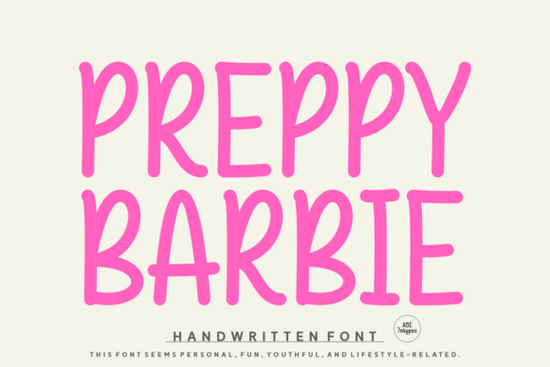
If you're looking for a handwritten font that feels personal without sacrificing polish, the Preppy Barbie Font is worth a closer look. It’s designed to mimic natural handwriting think smooth strokes, gentle curves, and letterforms that flow effortlessly from one to the next. Unlike overly stylized script fonts that can be hard to read, Preppy Barbie strikes a balance between charm and clarity, making it especially useful for projects where warmth and approachability matter.
This kind of font works well across a range of creative uses: think quote graphics for Instagram, hand-lettered-style wedding invitations, logo concepts for small brands, or even printable wall art for Etsy shops. Its casual yet clean appearance helps your message feel human, not corporate.
What makes Preppy Barbie different from other handwritten fonts?
Many script fonts lean either too formal or too chaotic. Preppy Barbie avoids both extremes. It has enough character to stand out but remains highly legible even at smaller sizes. The spacing between letters feels organic, not cramped, which is essential if you’re using it for body text in greeting cards or packaging labels.
If you’ve tried fonts like Monday Outline or Hello Wicked, you’ll notice Preppy Barbie sits in a slightly softer, more relaxed lane. Where Monday Outline offers bold contrast and Hello Wicked leans into playful drama, Preppy Barbie keeps things grounded and friendly ideal when you want your design to feel like it came from a real person, not a template.
Who should use this font?
It’s especially handy for:
- Print-on-demand sellers creating mugs, T-shirts, or tote bags with inspirational quotes
- Small business owners designing social media graphics or email headers that reflect their brand voice
- Crafters and hobbyists making custom cards, planner stickers, or scrapbook elements
- Freelance designers looking for an authentic handwritten option that doesn’t require heavy kerning adjustments
Because it includes standard ligatures and alternates (depending on the version you download), you can add subtle variety to repeated letters great for avoiding that “computer-generated” repetition that plagues simpler script fonts.
How does it compare to similar Creative Fabrica fonts?
Fonts like Strawberry Crumble and Sundae Script Duo also offer a sweet, handcrafted aesthetic, but they often include more decorative swashes or bouncy baselines. Preppy Barbie is more restrained, which gives it broader usability. You can pair it confidently with sans-serif fonts for contrast or layer it over photos without overwhelming your layout.
And if you enjoy the delicate, garden-party vibe of BeautifulGarden, you might appreciate how Preppy Barbie delivers a similar sense of intimacy but with a modern, everyday energy rather than a vintage flourish.
Tips for getting the best results
To make the most of this font:
- Avoid all caps. Like most handwritten styles, it’s designed for mixed-case or lowercase use. Uppercase letters can look stiff or disconnected.
- Use generous line spacing. Even though the font is readable, tight leading can make words feel crowded.
- Pair it wisely. Try combining it with a clean, neutral sans-serif like Montserrat or Lato for headings or supporting text.
- Test print size. If you’re using it for physical products, print a sample at actual size some handwritten fonts lose detail when scaled down.
Remember, the goal with fonts like Preppy Barbie isn’t just aesthetics it’s about creating a connection. When your audience sees something that looks like it was written just for them, they’re more likely to pause, read, and engage.